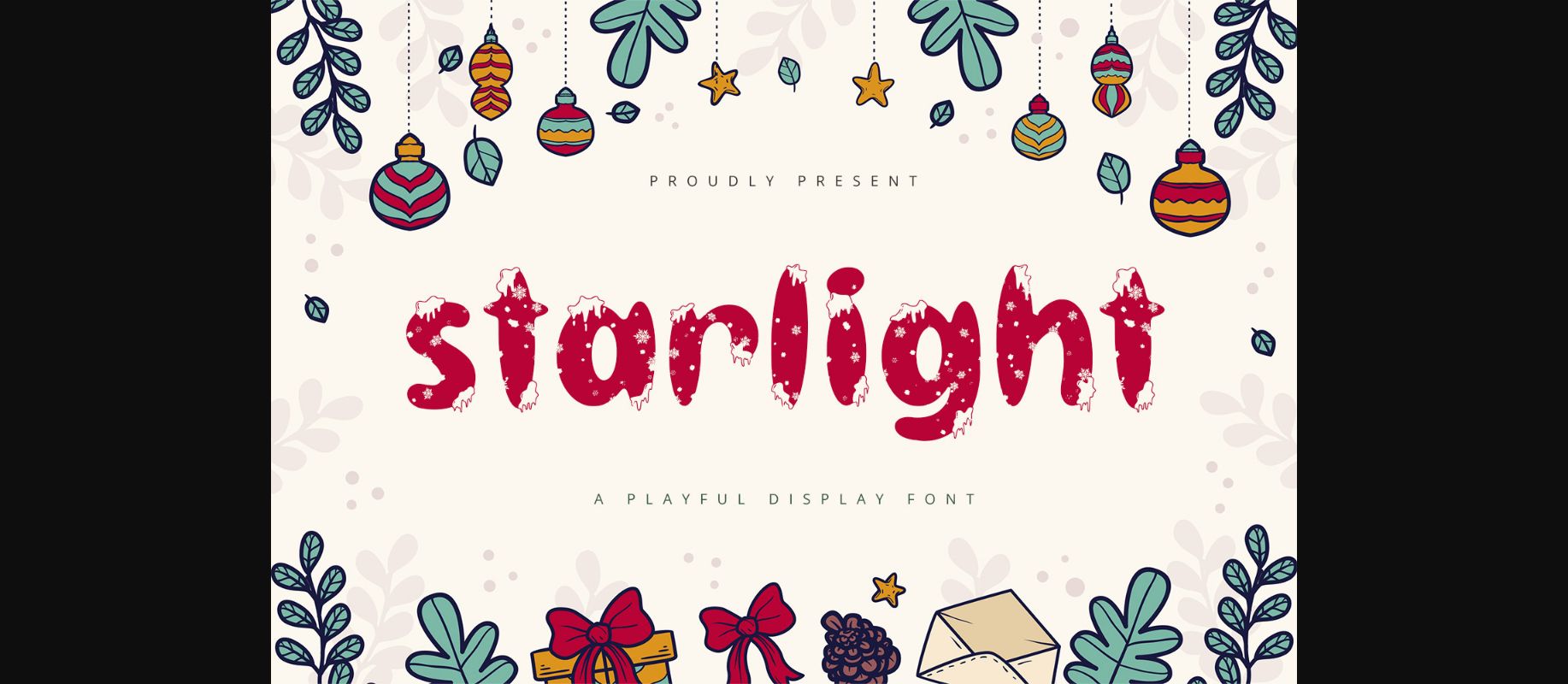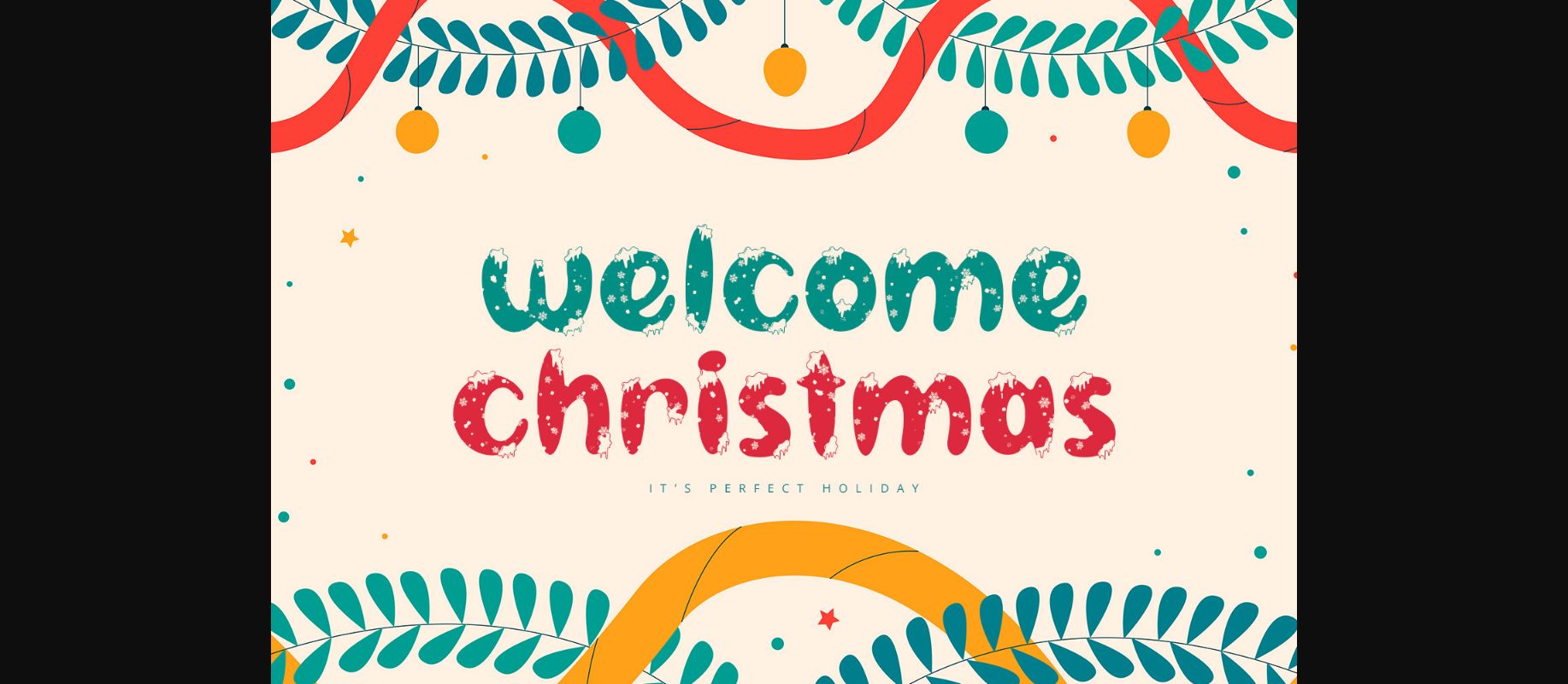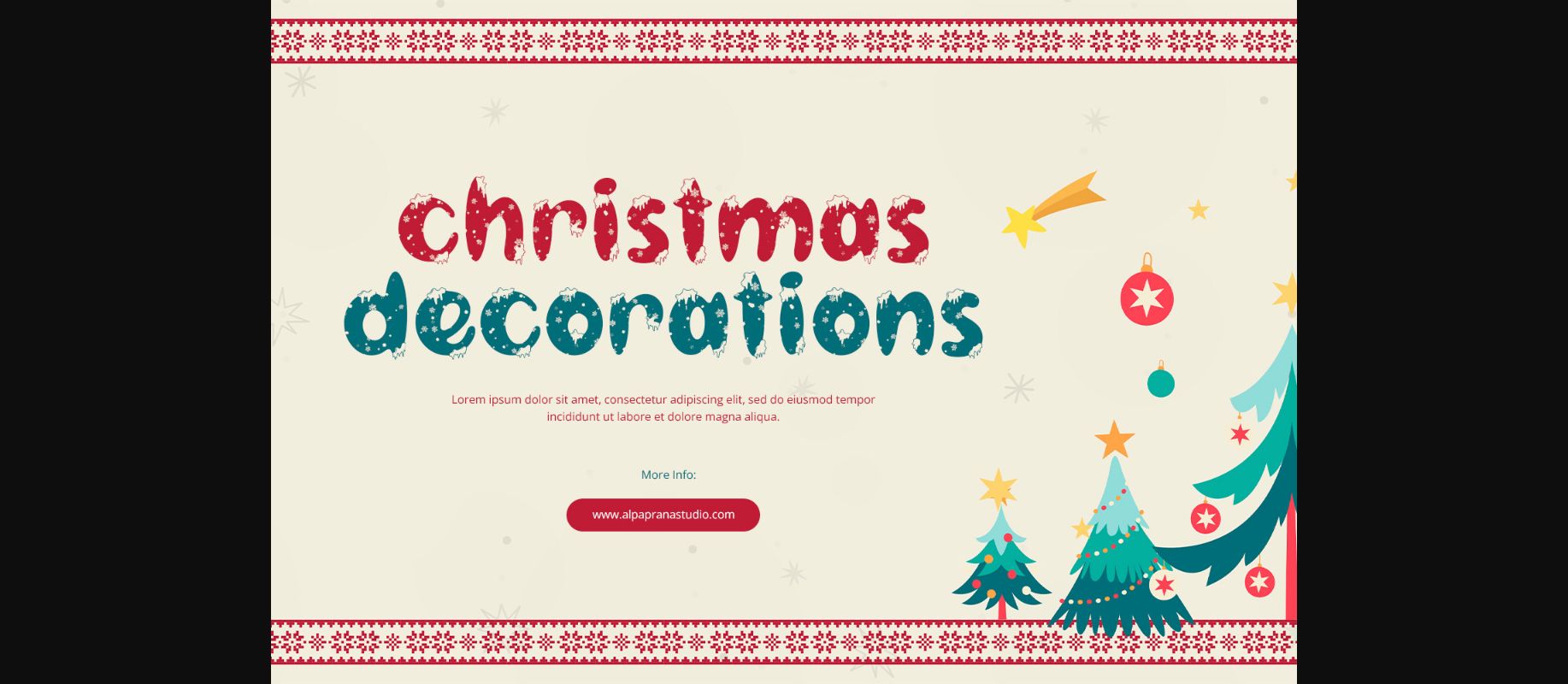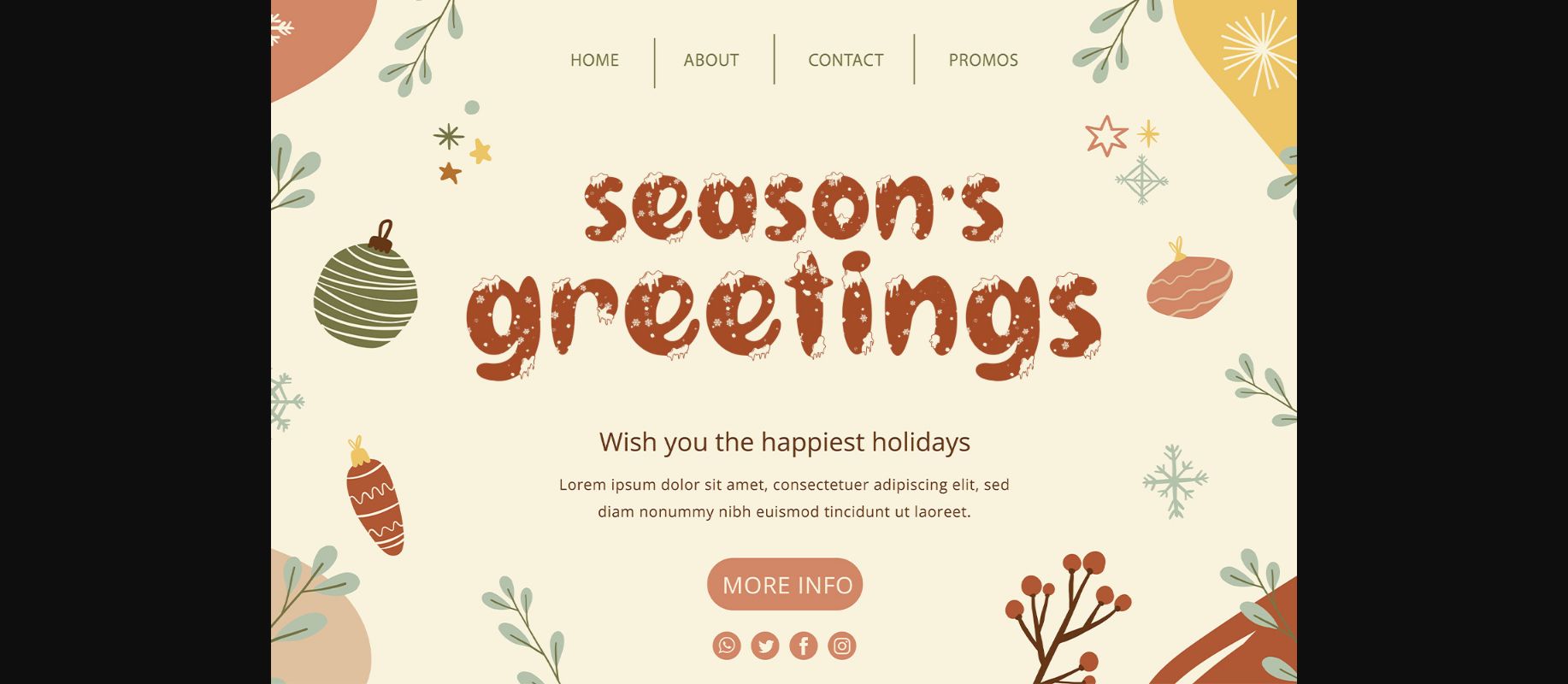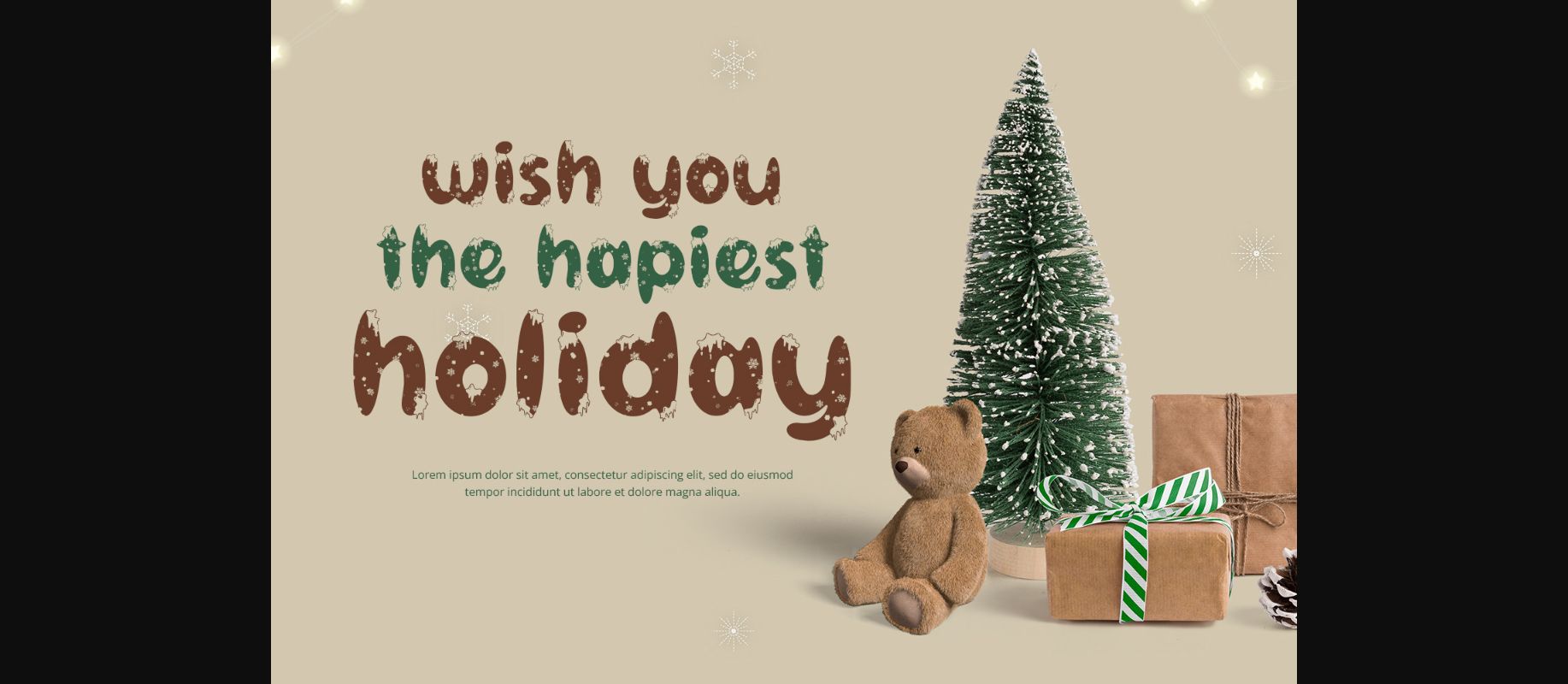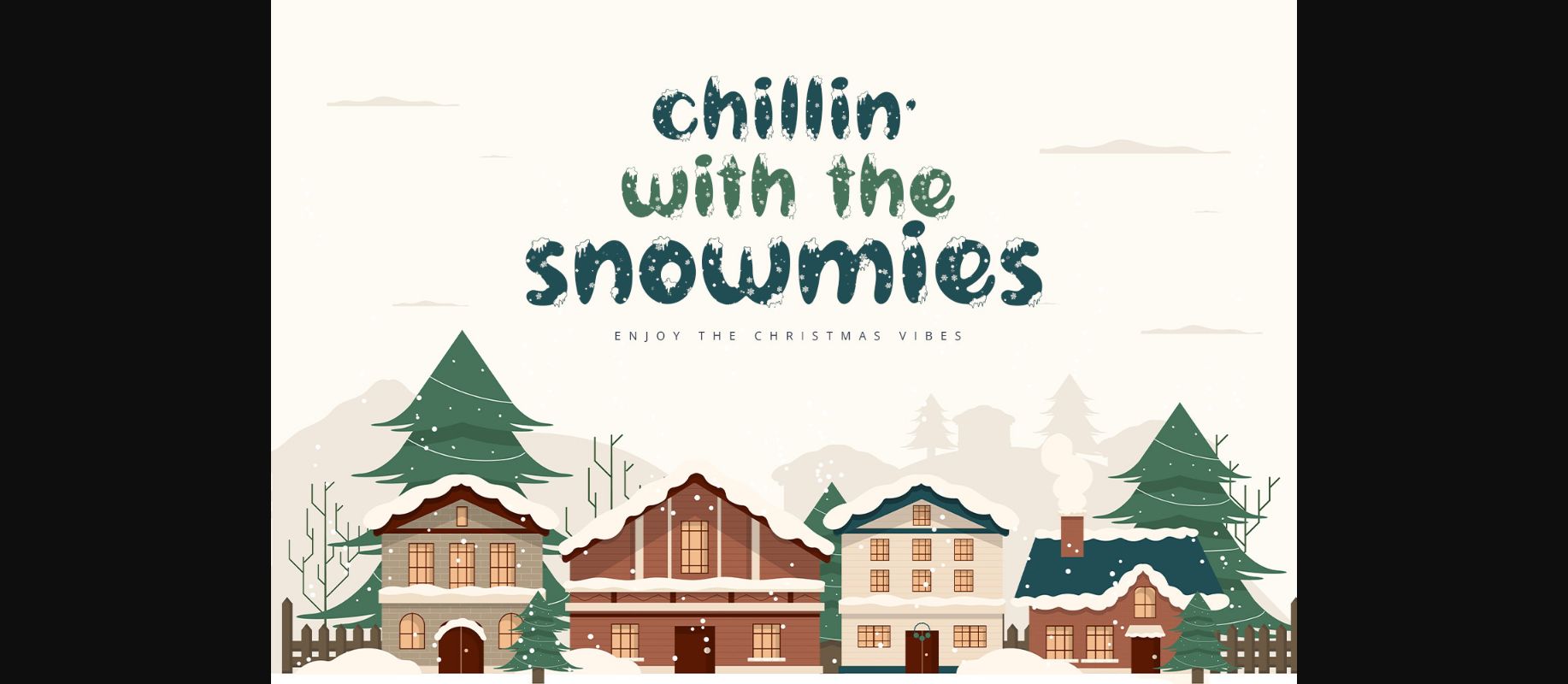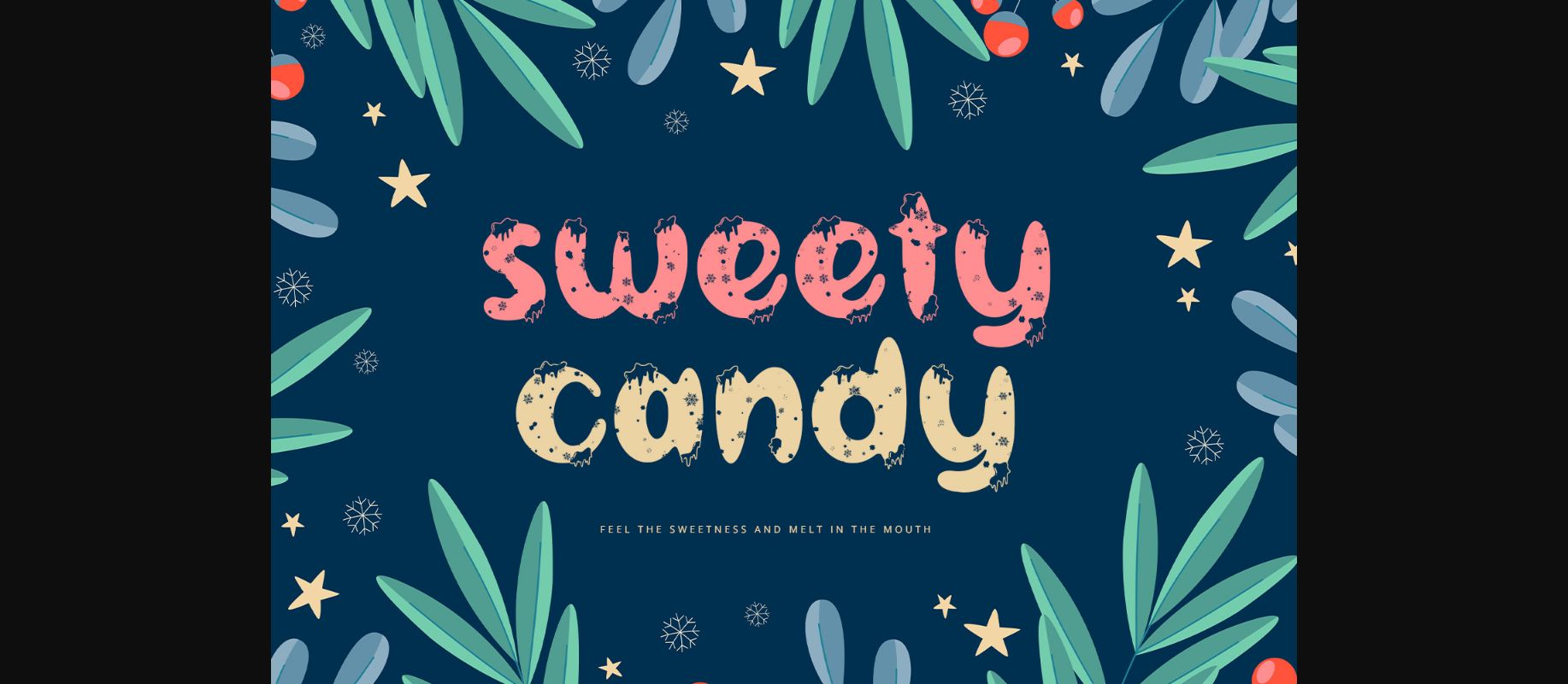
Starlight Font
About Starlight Font
Starlight is a playful decorative font with a cute and unique style. It will be perfectly used for Branding, Logo Design, Lettering, Logotype, Clothing, Poster, magazine, packaging, posters, shopping bags, t-shirts, book covers, photography, special events, and other design projects.